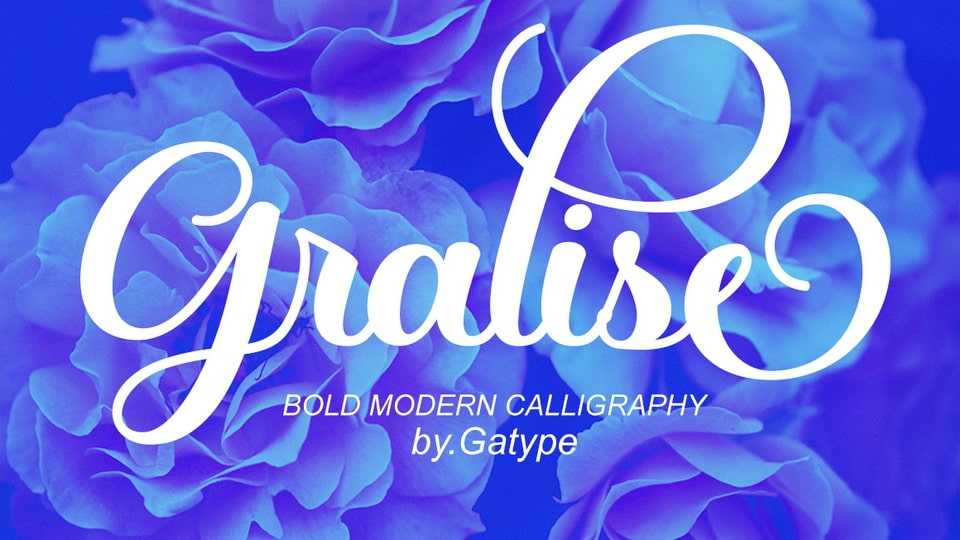
Download Gralise Script font, an updated hand calligraphy typeface with special glyphs that have been given a combination of fantasy and handwritten ink.